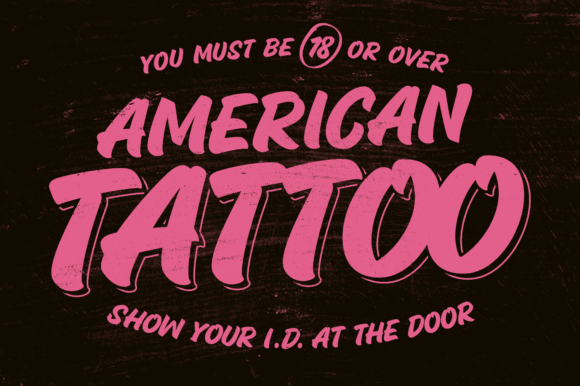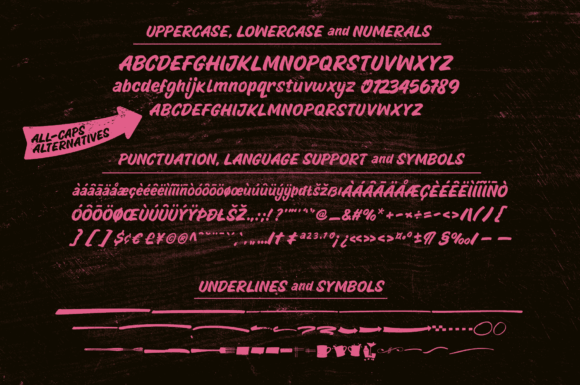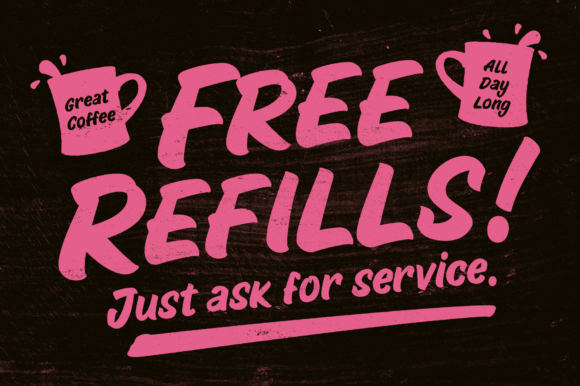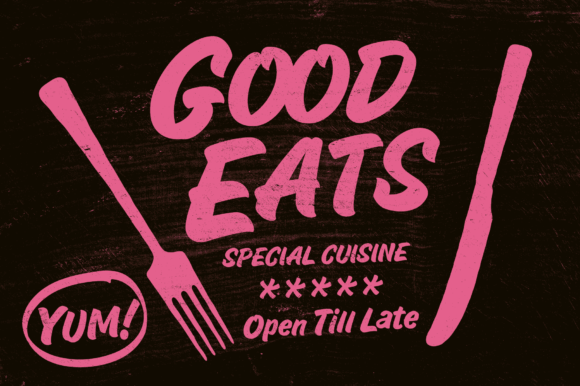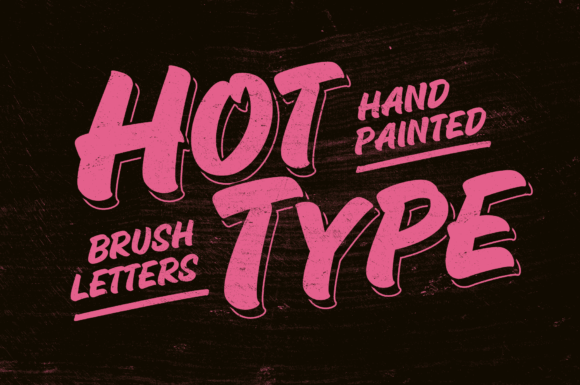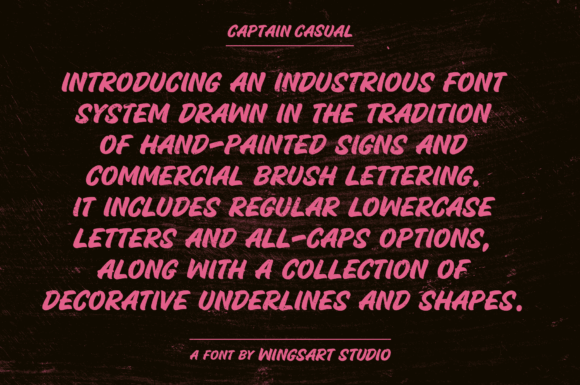
Meet Captain Casual: The Brush Font That’s a Game-Changer for Designers
I’ll never forget the design project that made me fall in love with the Captain Casual font. I was working on a branding project for a trendy coffee shop, and I needed a font that would capture the laid-back, yet professional vibe of their brand. After hours of scrolling through font libraries, I stumbled upon Captain Casual, and it was love at first sight! 💕
The font’s unique blend of casual coolness and legibility made it perfect for the coffee shop’s signage, menu, and marketing materials. I was able to create a cohesive brand identity that resonated with their target audience. In this article, I’ll share my experience with Captain Casual, its features, and how to make the most of this amazing font.
An Honest Review of Captain Casual
What I Love About Captain Casual ✨
• ✅ The font’s versatility: Captain Casual is highly adaptable and reads well in sizes large and small, making it perfect for a variety of design projects.
• ✅ The range of options: The font includes regular lowercase letters, all-caps options, decorative underlines, and shapes, giving designers a lot of creative freedom.
• ✅ The classic hand-painted feel: Captain Casual’s brush-lettering style is reminiscent of traditional hand-painted signs, adding a touch of nostalgia and authenticity to any design.
• ✅ The legibility: Despite its casual appearance, Captain Casual is highly legible, making it perfect for use in signage, menus, and other applications where clarity is crucial.
While Captain Casual is an amazing font, it’s not without its quirks. For example:
• 🤔 The font’s casual nature may not be suitable for very formal or corporate designs.
• ⚠️ Some users may find the font’s brush-lettering style a bit too distressed or rough for their taste.
Captain Casual was inspired by the classic hand-painted signs that adorn America’s storefronts, billboards, and work vehicles. The font’s creator wanted to capture the essence of this timeless design style, combining the appearance of laid-back cool with a legibility that means business.
Q: What is Captain Casual, and how can I use it?
A: Captain Casual is a brush font designed in the tradition of hand-painted signs and commercial brush lettering. You can use it for a variety of design projects, from signage and menus to marketing materials and more.
Q: Is Captain Casual suitable for formal or corporate designs?
A: While Captain Casual is a versatile font, its casual nature may not be suitable for very formal or corporate designs. However, it can be used in certain contexts, such as creative agencies or startups, where a more relaxed vibe is desired.
Q: Is Captain Casual easy to read?
A: Yes, Captain Casual is highly legible, making it perfect for use in signage, menus, and other applications where clarity is crucial.